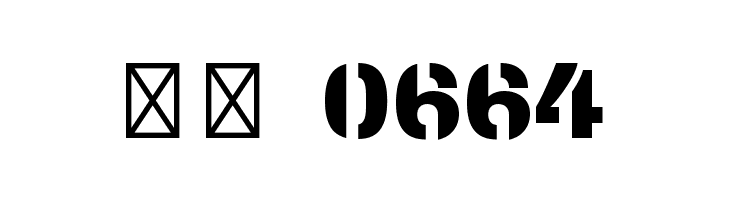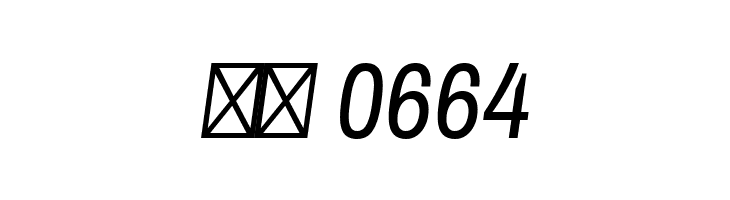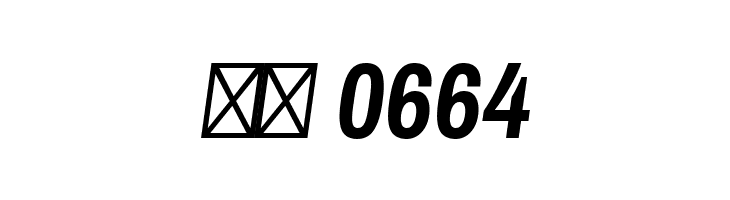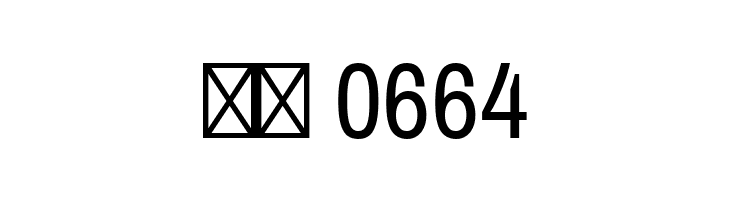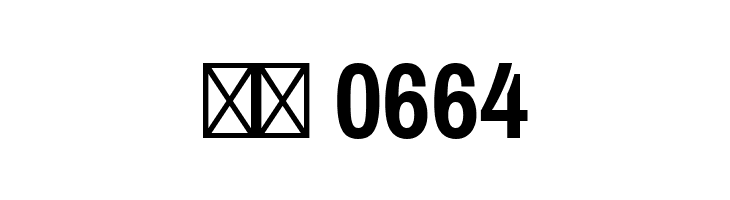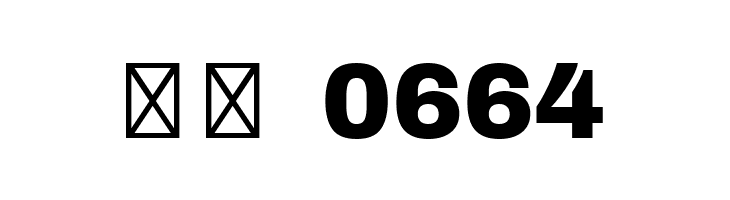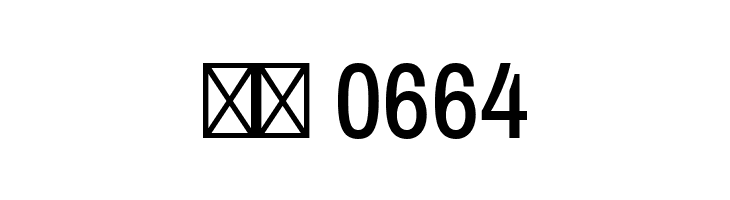
• Archive
A bold, geometric font with strong, consistent letterforms.
• Archive
A modern, playful sans-serif font with rounded edges and balanced proportions.
• Archive Bold
A bold, rounded font with a playful and structured appearance.
• Archive Bold Italic
A bold, italicized font with smooth curves and a dynamic slant.
• Archive Italic
A sleek and elegant italic font with smooth curves and a modern style.
• Archive Signature
A playful, handwritten font with tall, narrow letters and a whimsical style.
• Archive Signature
A playful handwritten font with tall, narrow letters and dynamic strokes.
• Archive-Hollow
A modern, hollow font with clean lines and rounded edges, offering a unique and airy appearance.
• Archive-Inverse
A modern, elegant font with flowing curves and sharp edges.
• Archivo Black
A bold, impactful typeface with thick strokes and strong presence.
• Archivo Black
A bold, sans-serif font with a strong, modern presence.
• Archivo Black
A bold, geometric font with high contrast and a modern style.
• Archivo Black Regular
A bold, modern sans-serif font with a strong, impactful presence.
• Archivo Bold
A bold, modern typeface with strong, clear characters and consistent stroke width.
• Archivo Bold
A bold, modern sans-serif font with clean lines and strong readability.
• Archivo Bold Italic
A modern, bold, and italicized typeface with a clean and dynamic style.
• Archivo Italic
A modern, italicized sans-serif font with clean lines and consistent stroke width.
• Archivo Medium
A modern, clean typeface with excellent readability and balanced proportions.
• Archivo Medium Italic
A modern, italic sans-serif font with medium weight and balanced proportions.
• Archivo Narrow Bold
A bold, narrow sans-serif typeface with a modern and clean design.
• Archivo Narrow Bold